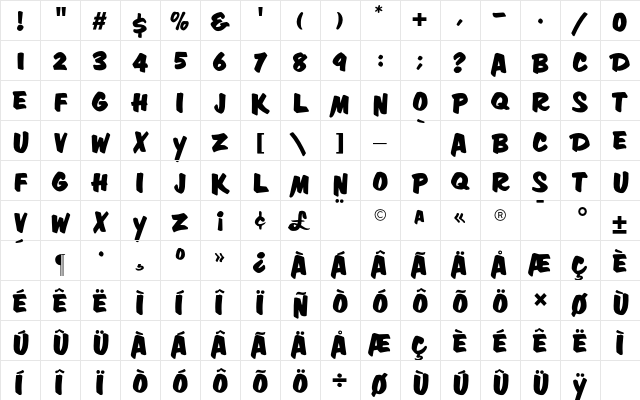
Davison Zip CG Bold Regular
| Foundry | Agfa Corporation |
Design Context for Davison Zip CG Bold Typeface
Davison Zip CG Bold is a composed and adaptable typeface that performs quietly and consistently across a wide range of design contexts. Its bold stroke weight gives it real presence on the page.